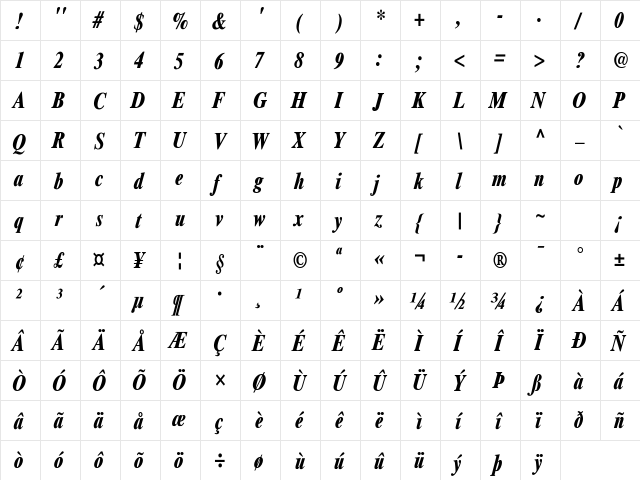
Xerox Serif Narrow Bold Italic Font Preview
Design Context for Xerox Serif Narrow Typeface
Xerox Serif Narrow brings classic typographic sensibility to the table — its serifs and measured letterforms reflect centuries of print heritage. The slanted form adds forward momentum and visual energy. Its bold stroke weight gives it real presence on the page. The condensed width makes it efficient for tight spaces without sacrificing legibility.
Pro Tip: Set Xerox Serif Narrow with slightly loose tracking in headlines to let each letterform's detail read clearly at display sizes.